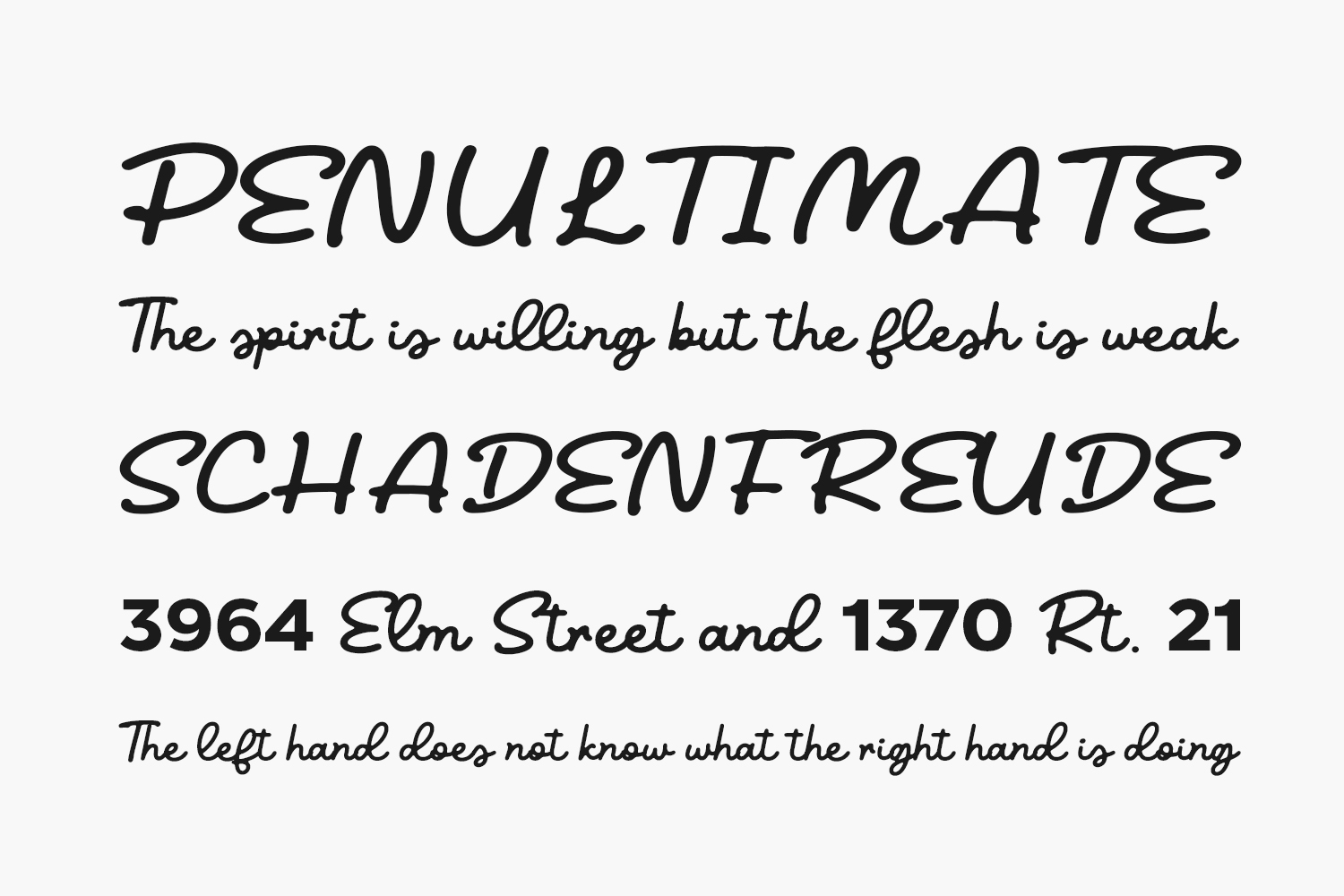
Benjamin Victoria Free Font is a vintage styled, cursive, and well balanced script font. It is suitable for logos, stationery art, quotes, book covers, magazines, branding, and much more. Add it to your most unique ideas and make them stand out. Benjamin Victoria Free Font was designed by Kotak Kuning Studio and is free for personal use only. Please purchase the full version for commercial use.